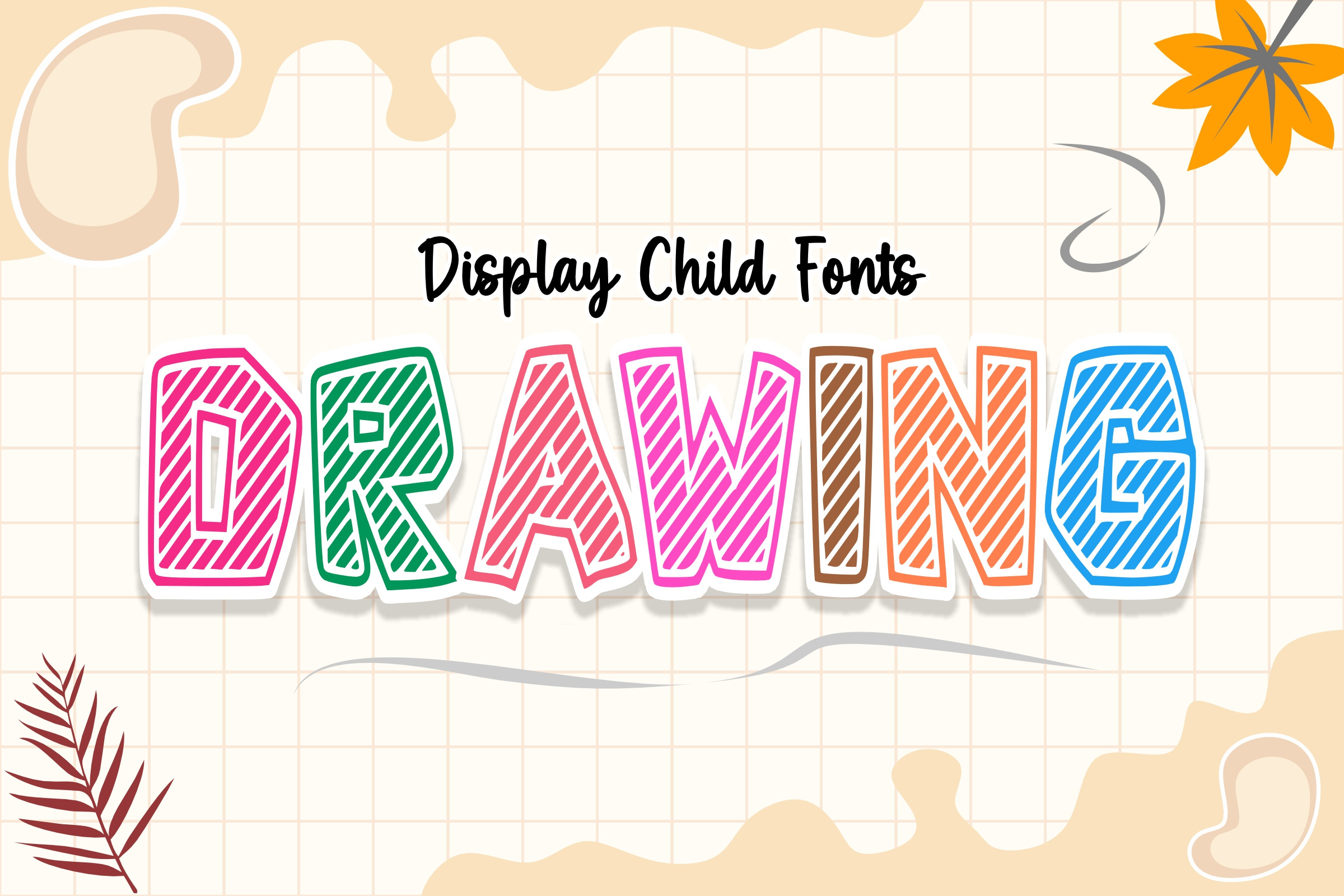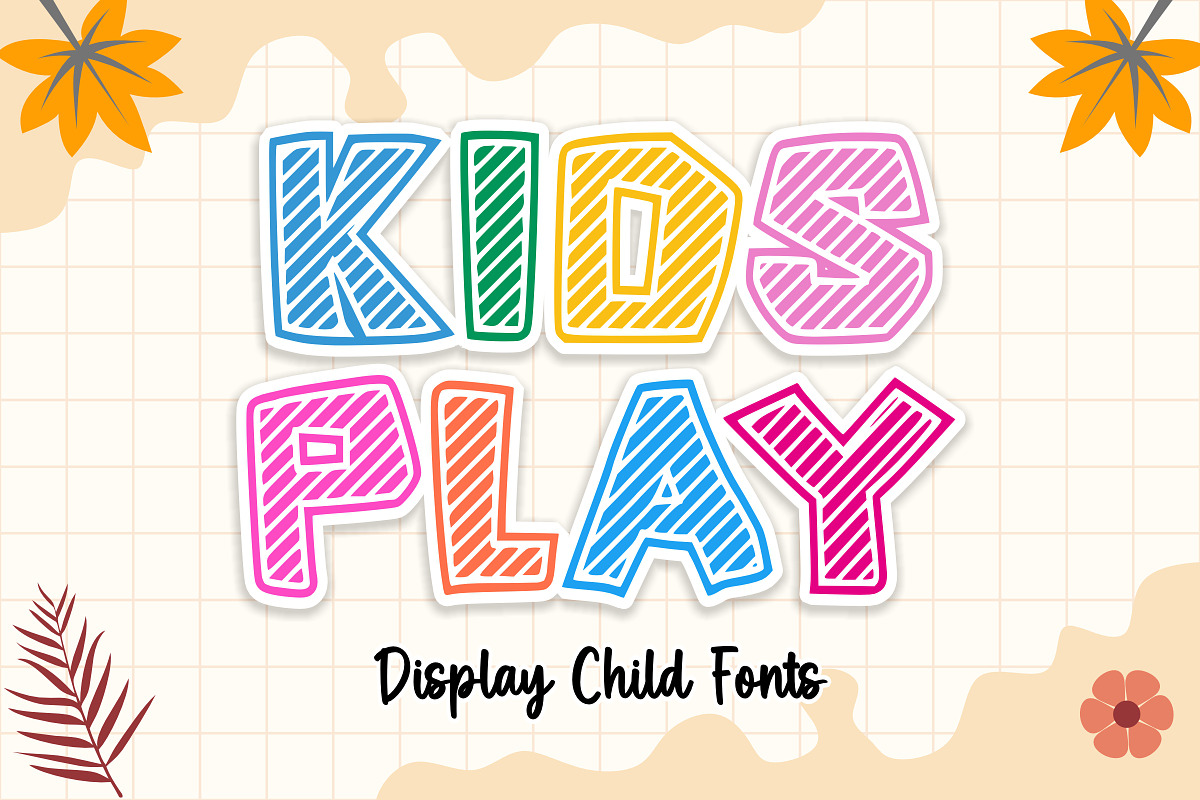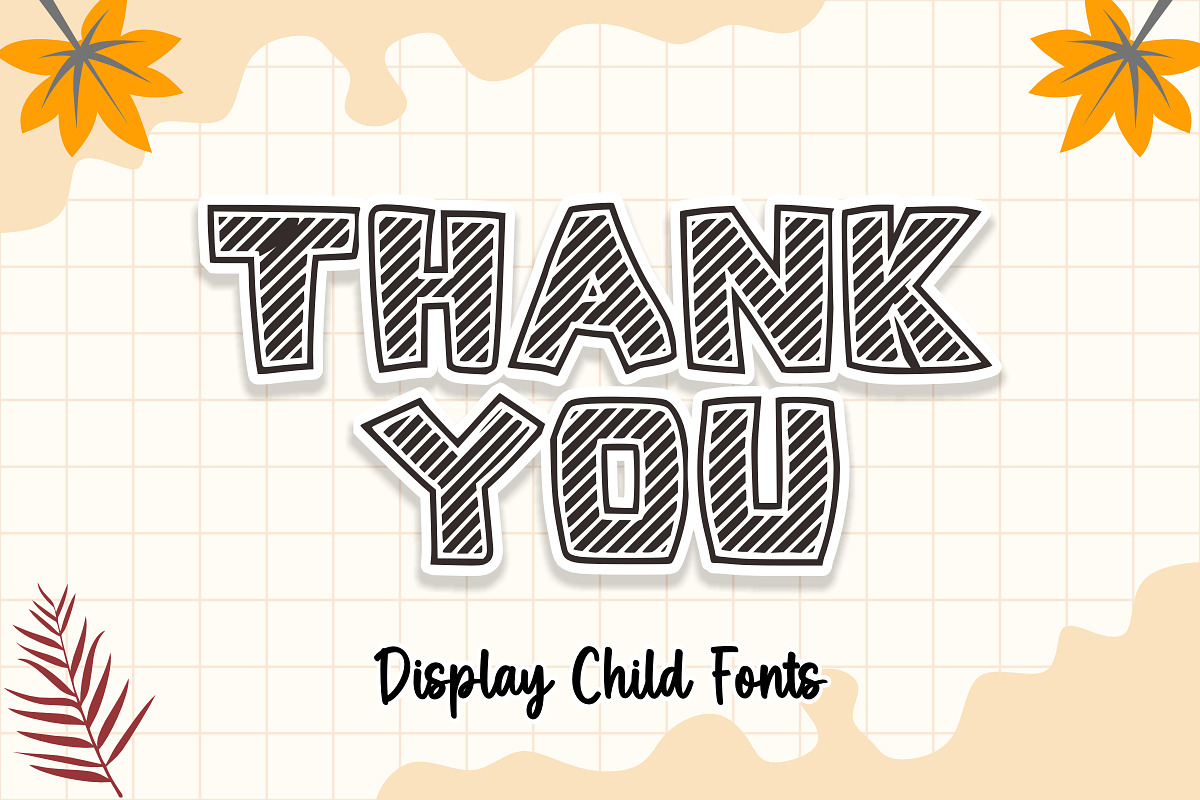
Drawing - Kids Font Types
Experience a delightful blend of whimsical charm with Picture Font – a unique children’s font engineered to spark joy and creativity! Each character brims with endearing appeal, transforming simple text into a delightful array of cute, visually engaging symbols. Picture Font is designed specifically to foster a jovial, kid-friendly environment, making it an irresistible choice for projects centered around children’s content. Its lovable aesthetic imbued with unmistakable kid appeal makes it a coveted selection for designers, educators, and content creators eager to light up young eyes and inspire youthful imagination.